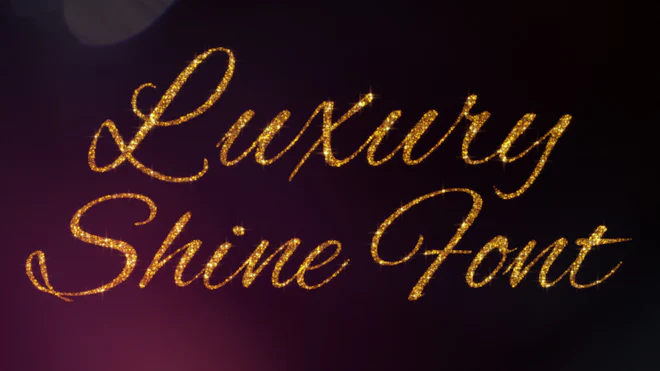
This stock motion graphics video pack includes 77 different clips of elegant golden shiny typefaces on a transparent alpha channel. Includes 26 capital letters and 26 lower case letters, 10 numbers and 14 symbols.